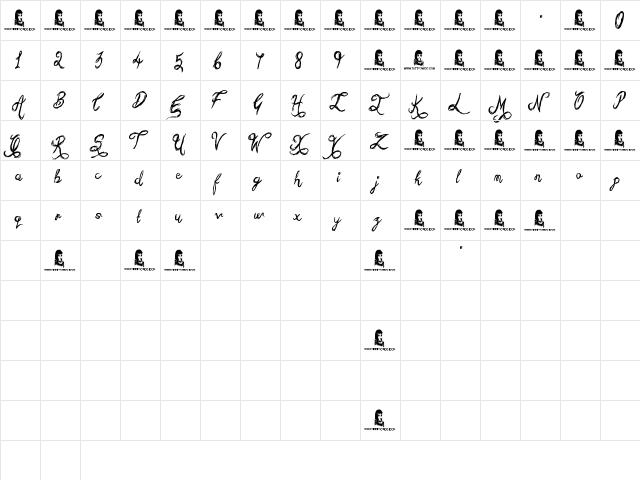
Sketchy Script Regular
Design Context for Sketchy Script Typeface
Sketchy Script flows with the natural rhythm of handwritten lettering, making it ideal for designs that call for warmth and personal expression.
Font Pairing: Combine Sketchy Script with a simple geometric sans for maximum contrast — the tension between flowing curves and clean structure is a classic typographic pairing.
Pro Tip: Pair Sketchy Script with a clean sans-serif for supporting text. The contrast between fluid script and geometric structure creates an elegant typographic hierarchy.